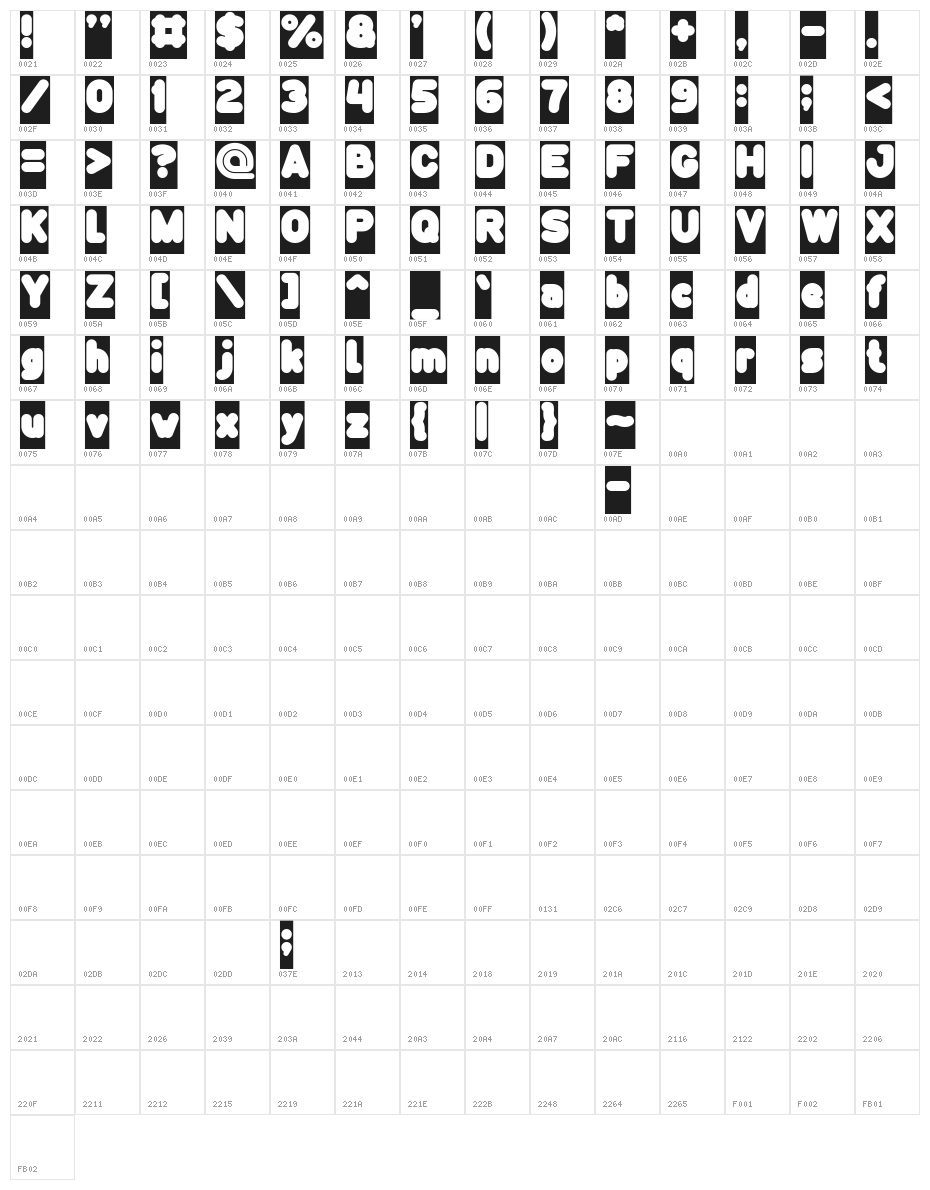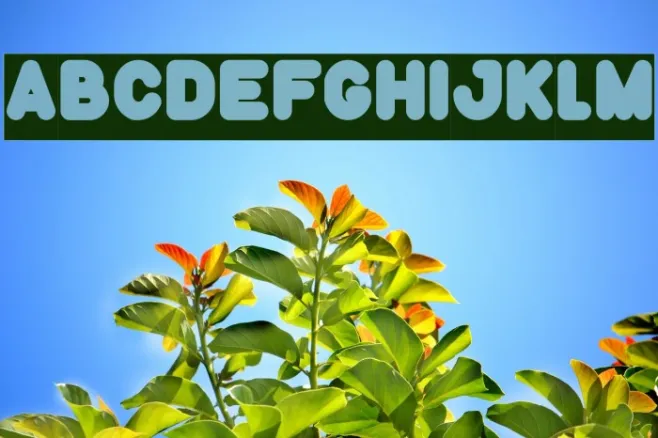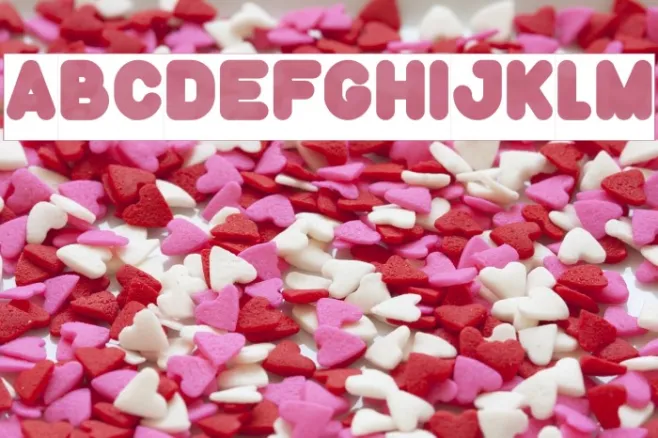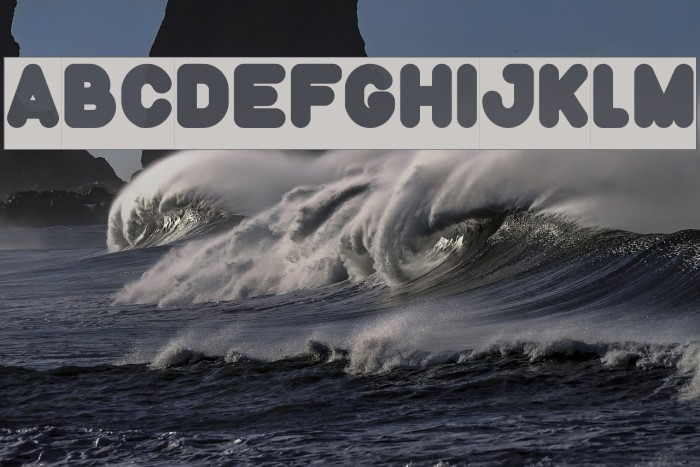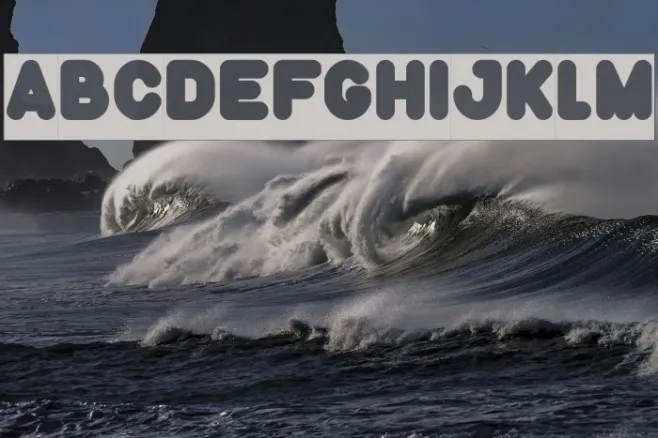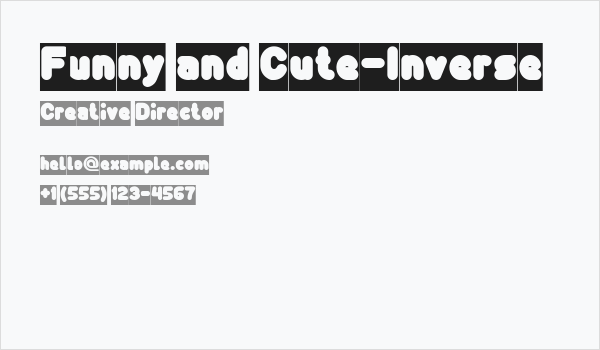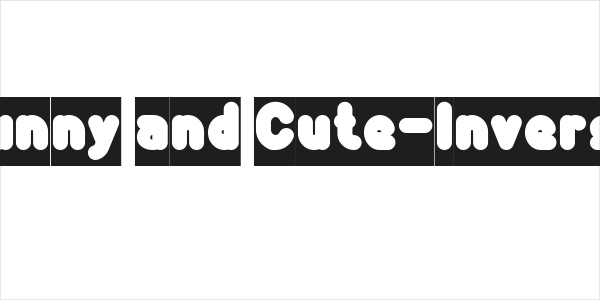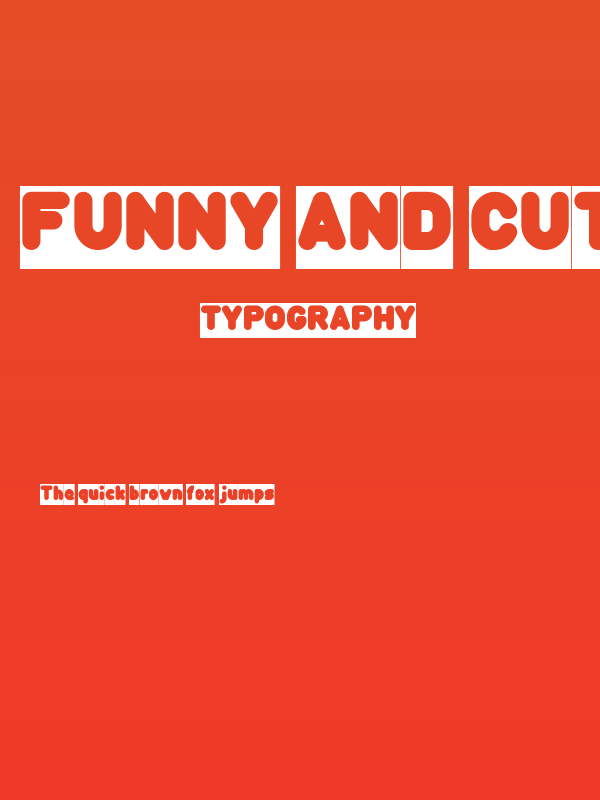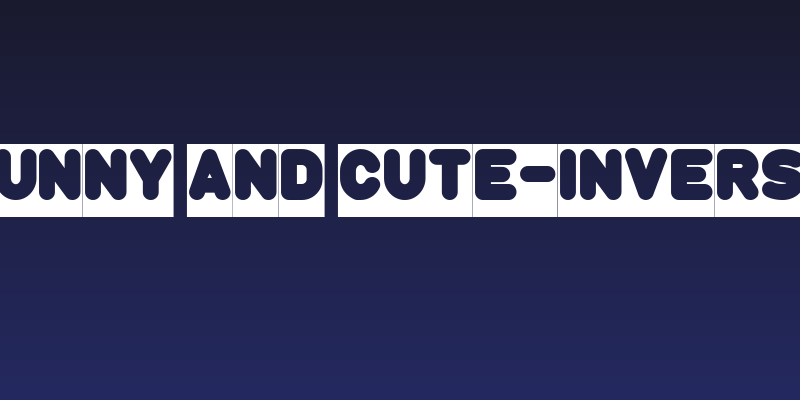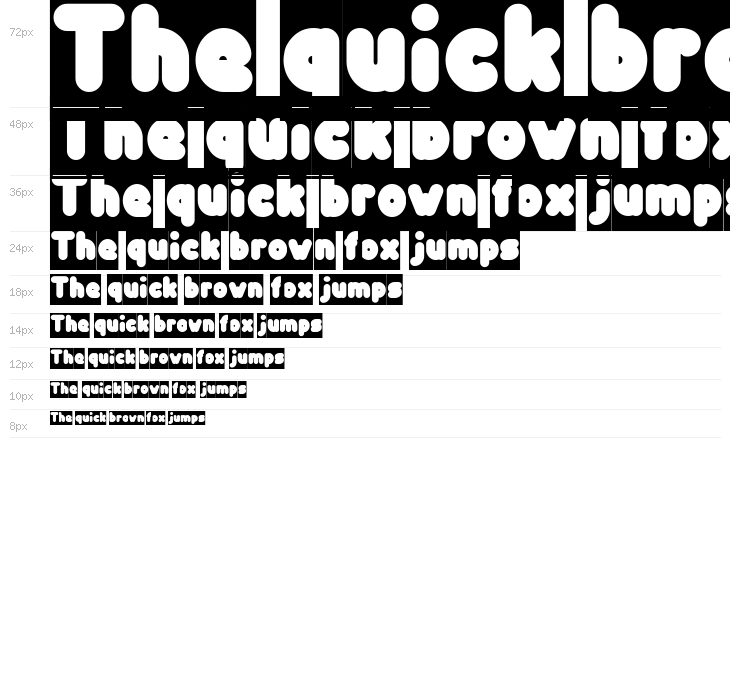
Funny and Cute-Inverse Font
Funny and Cute-Inverse Description
This playful and whimsical font features bold, rounded characters that exude a sense of fun and creativity. The letters are designed with a bubbly appearance, making them stand out with their thick, uniform strokes and smooth curves. The font maintains a consistent weight throughout, providing a cohesive look across all characters. Its unique style is both eye-catching and approachable, making it ideal for projects that require a touch of humor and lightheartedness. The font's design is perfect for children's materials, party invitations, or any project that aims to convey a sense of joy and playfulness.
| Proposed Projects | Ideal for children's books, party invitations, playful branding, and creative posters. |